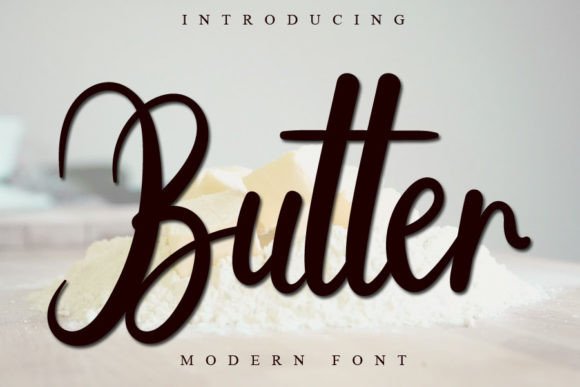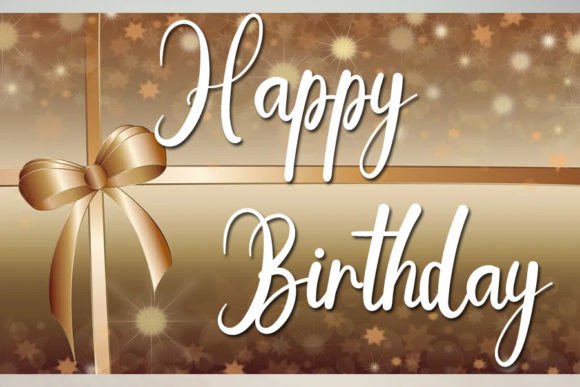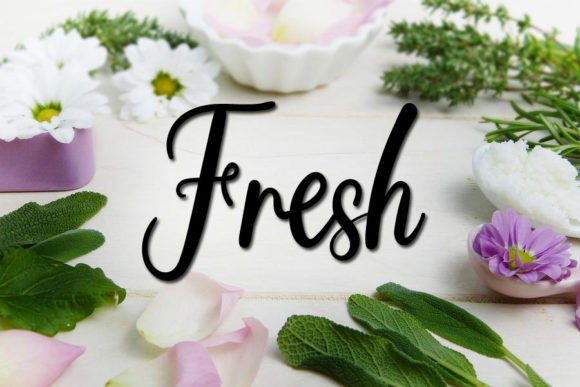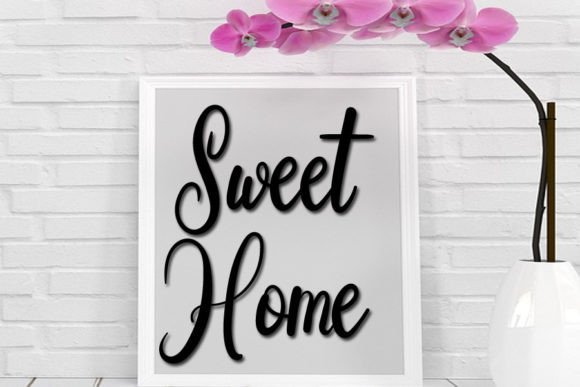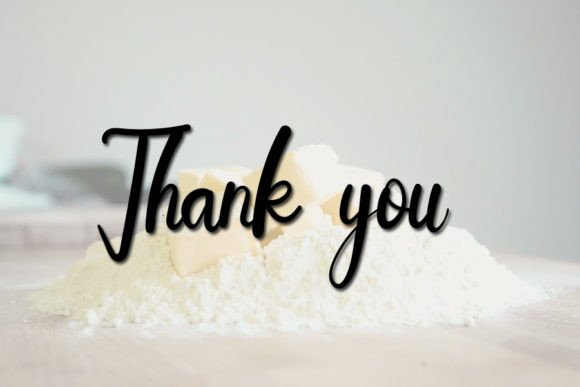
Butter Font
About Butter Font
“Butter” is a fun and fresh handwritten script font that brings a playful and lively vibe to your designs. It’s particularly well-suited for a wide range of creative projects, adding a delightful handwritten touch to various applications. This font shines on wedding invitations, thank you cards, quotes, greeting cards, logos, business cards, and any other design that benefits from a handwritten aesthetic.
The notable characteristics of “Butter” include its fun and fresh appeal. Its script style exudes a sense of spontaneity and authenticity, making it an excellent choice for projects where a personal and handwritten touch is desired.
Imagine using “Butter” to create whimsical wedding invitations that capture the joy of the occasion. Visualize incorporating this font into thank you cards to convey heartfelt gratitude with a touch of charm. “Butter” can also be a valuable asset for crafting memorable quotes, eye-catching logos, and business cards that leave a lasting impression.
In conclusion, “Butter” is more than just a font; it’s a design resource that injects a sense of fun and freshness into your creative work. Its handwritten script style makes it versatile for a variety of design applications where a personal and playful touch is essential. Embrace “Butter” as a font that enhances your designs and adds a unique, handwritten flair to your projects.